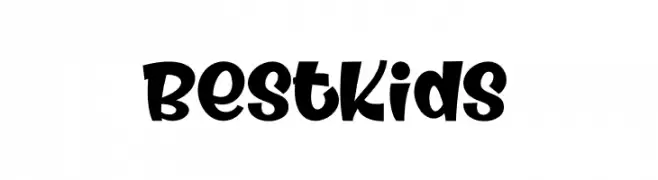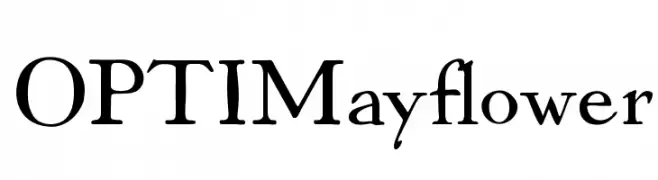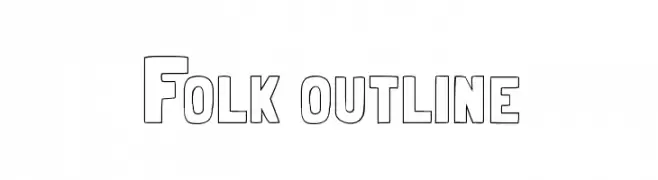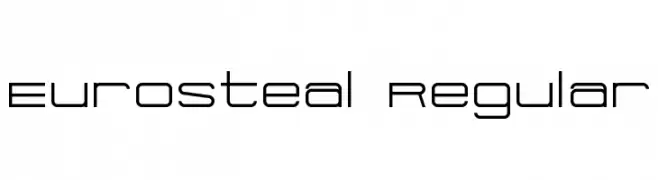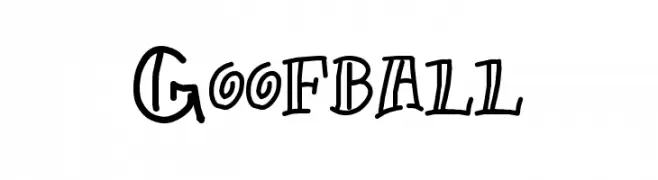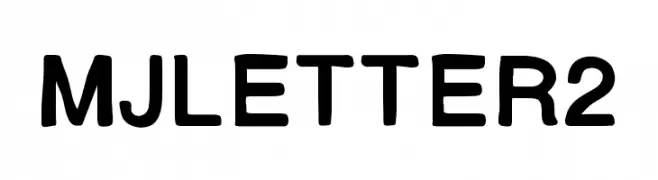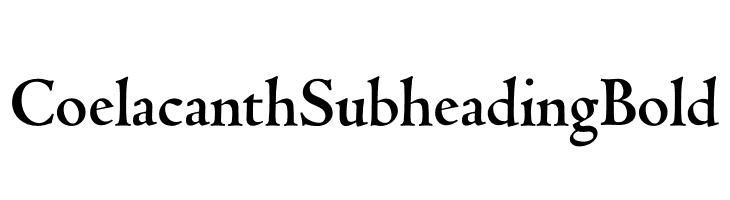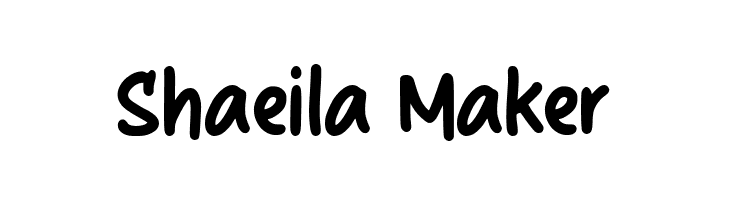
( Fonts by Awansenja Type )
A playful, bold font with a whimsical, hand-drawn style.
A classic serif font with elegant curves and a refined, sophisticated appearance.
( Fonts by Darko Kuzmanović )
A playful, rounded font with smooth curves and a friendly appearance.
( Fonts by www.marcelomagalhaes.net )
A bold, outlined font with a geometric and eye-catching style.
( Fonts by Astigmatic One Eye Typographic Institute - Brian J. Bonislawsky - astigmatic.com )
A skull-themed decorative font with diverse skull illustrations.
A sleek, modern font with a geometric and futuristic design.
( Fonts by AJ Palmer )
A playful, hand-drawn font with a whimsical, cartoonish style.
A pixelated, retro-style font ideal for nostalgic and tech-themed projects.
( Fonts by Ikiiko Type )
A bold, distressed font with sharp angles and a dynamic style.